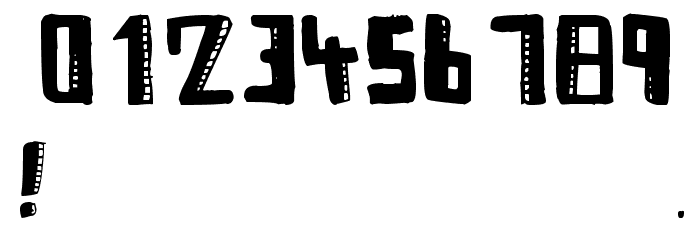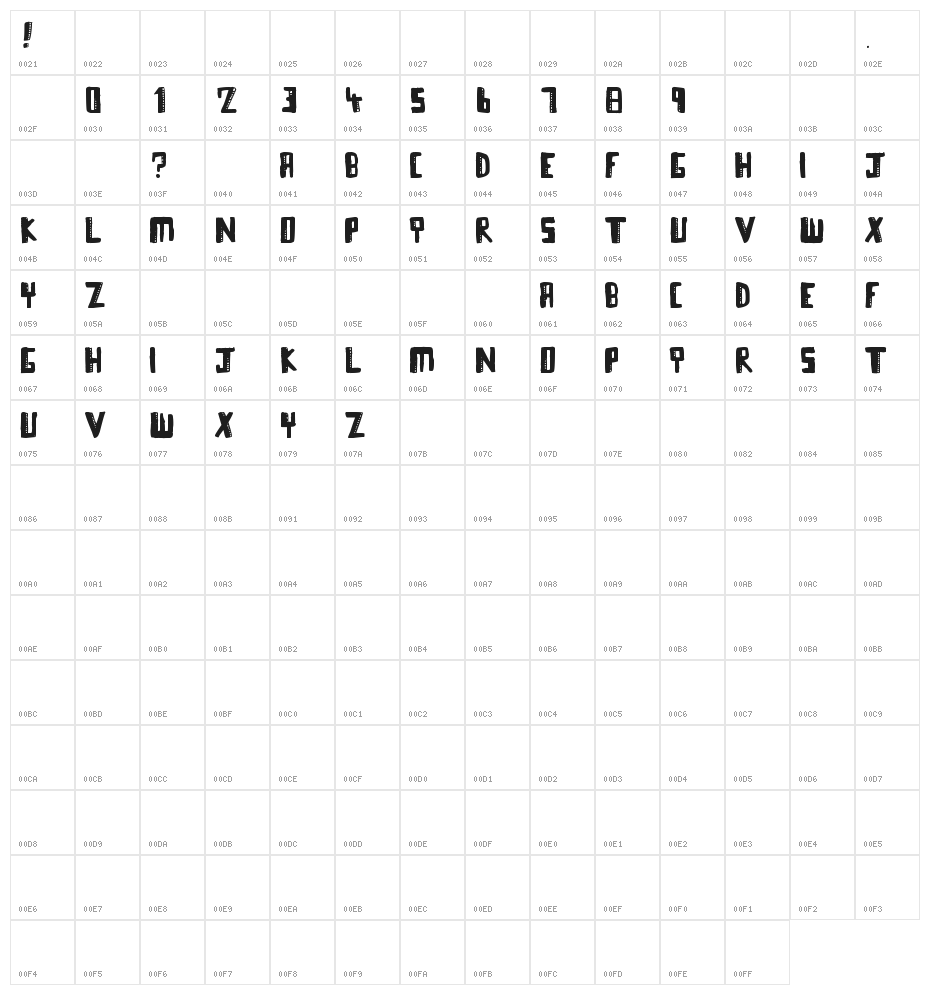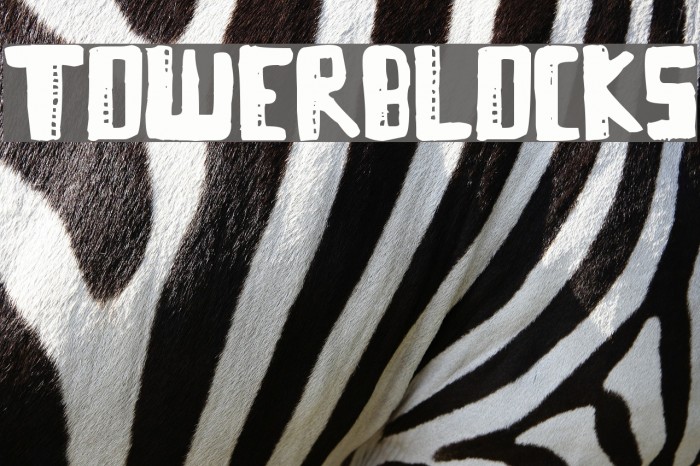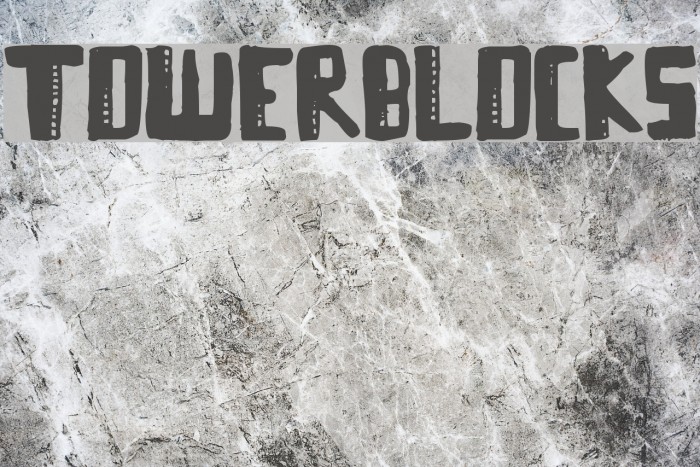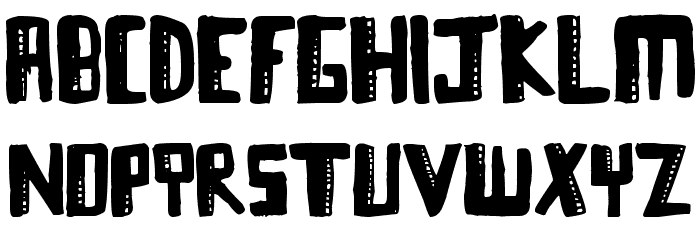
TOWERBLOCKS Font
TOWERBLOCKS Description
This font features a bold, blocky style with a playful and artistic touch. Each character is designed with a thick, uneven stroke that gives it a hand-drawn appearance. The letters are slightly irregular, adding to the charm and uniqueness of the font. The uppercase and lowercase letters maintain a consistent style, with the uppercase being more prominent. Numbers follow the same bold and quirky design, making them stand out. The special characters are creatively integrated, maintaining the overall aesthetic. This font is perfect for projects that require a fun and eye-catching look.
| Overall Style | Playful, Artistic |
| Use Case | Headlines, Posters, Creative Branding |
| Proposed Projects | Ideal for children's books, posters, creative branding, and playful graphic designs. |